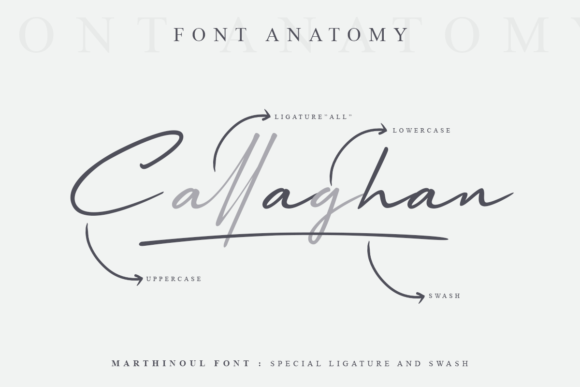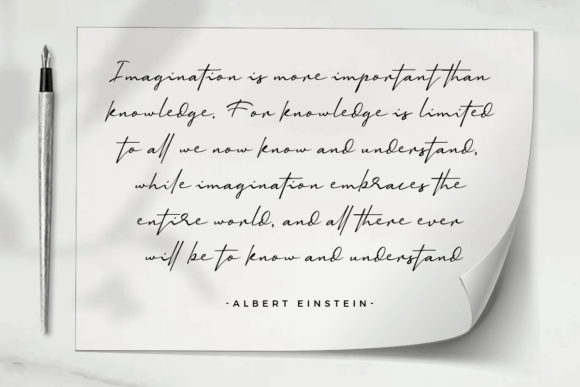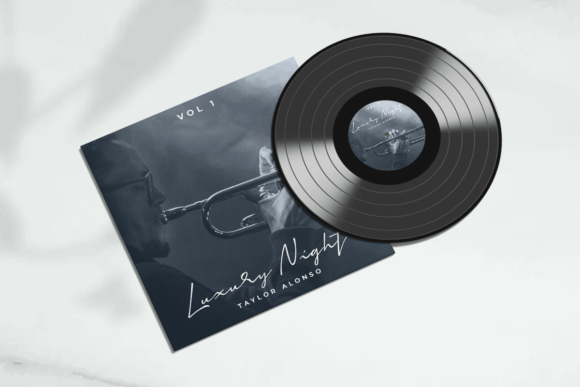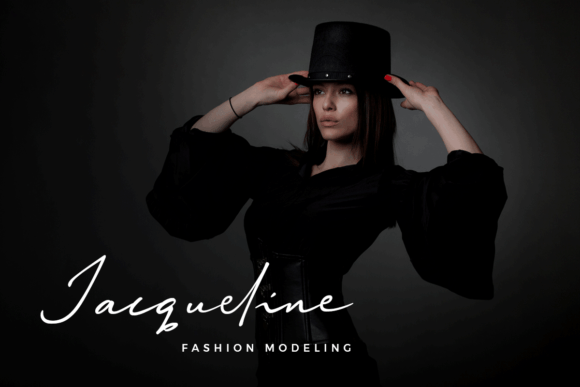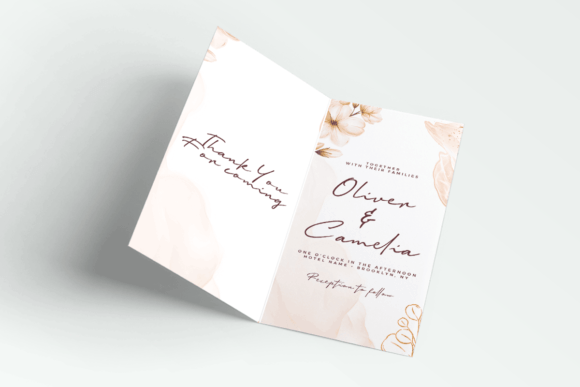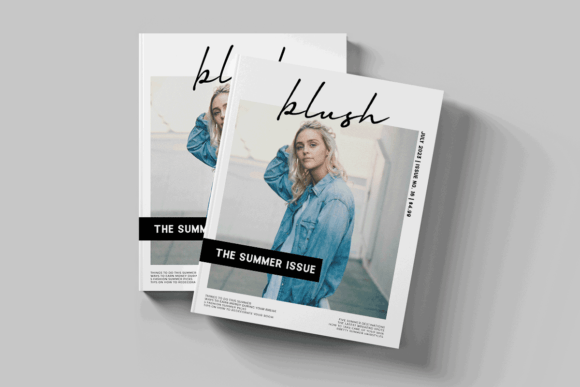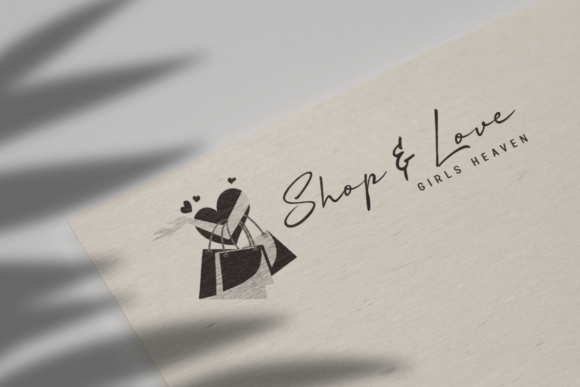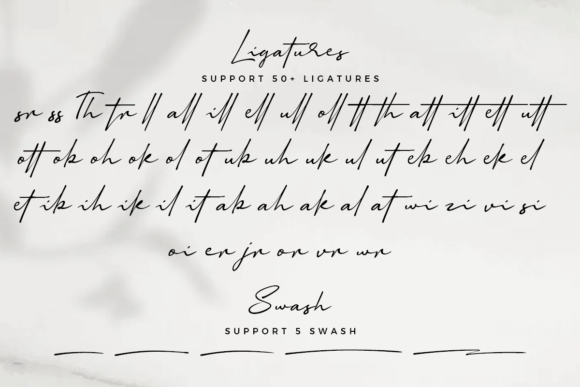
Marthinoul Font
About Marthinoul Font
“Marthinoul Font: Modern Elegance for Personalized Designs
Introducing Marthinoul, a modern and classy handwritten font designed to bring a touch of elegance to your creative projects. This font looks beautiful on a variety of designs requiring a personalized style, making it suitable for wedding invitations, thank-you cards, greeting cards, logos, and more. Marthinoul is not just a font; it’s a design asset that adds modern elegance to your work.
The modern and classy elegance of Marthinoul shines through, enhancing the visual appeal of your diverse projects. Whether you’re creating invitations, logos, or other personalized designs, Marthinoul adapts effortlessly to bring a sense of sophistication to your creations.
For wedding invitations and thank-you cards, Marthinoul becomes a classy choice, adding a personalized and elegant touch. The font’s handwritten style creates a modern and emotionally engaging visual experience.
In various creative projects such as logos, branding, and more, Marthinoul serves as a stylish element, creating a visual impact with its modern and classy design. Its versatility adds a touch of elegance to your creative endeavors.
Marthinoul’s PUA encoding allows you to access amazing glyphs and ligatures with ease, enhancing your design flexibility. This feature ensures that you have seamless access to the font’s unique characters, making your creative process smooth and enjoyable.
The suitability of Marthinoul extends to a wide array of design applications, making it ideal for personalized designs, branding, social media, and more. The font’s modern and classy handwritten style enhances the overall aesthetics, creating a visually pleasing and memorable experience.
In conclusion, Marthinoul is more than just a font; it’s a design companion that brings modern elegance to your creative toolkit. Let Marthinoul be the brushstroke that adds sophistication to the beauty of your projects. Embrace the modern and classy charm of Marthinoul, and watch as it transforms your ideas into visually enchanting and memorable experiences.”